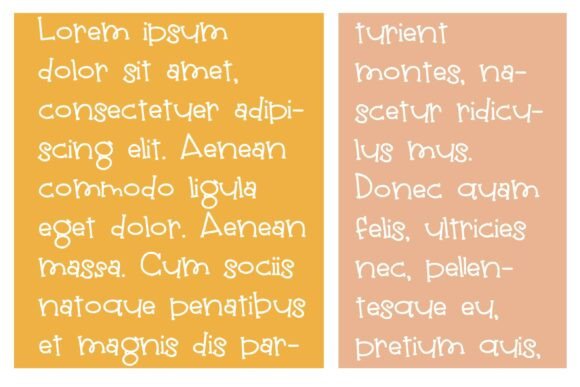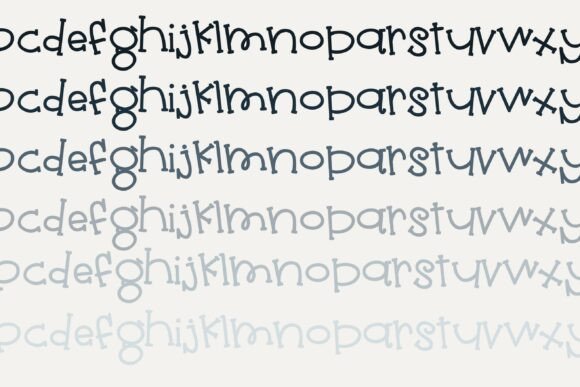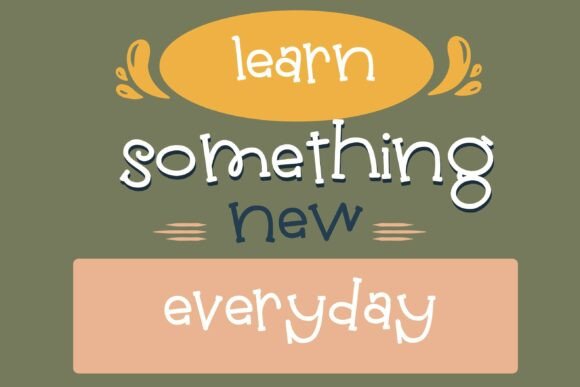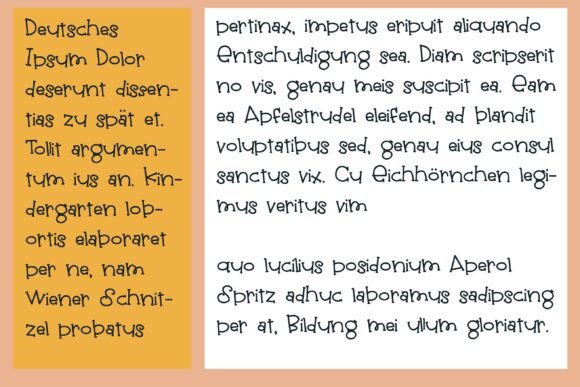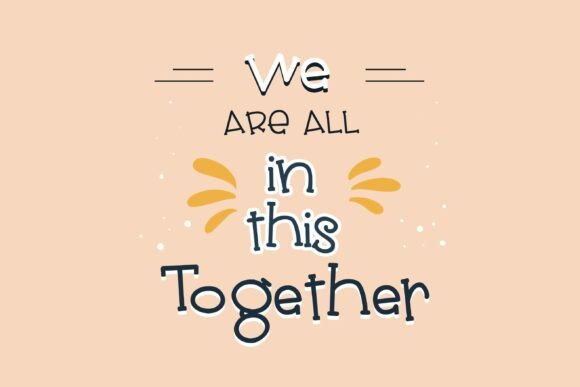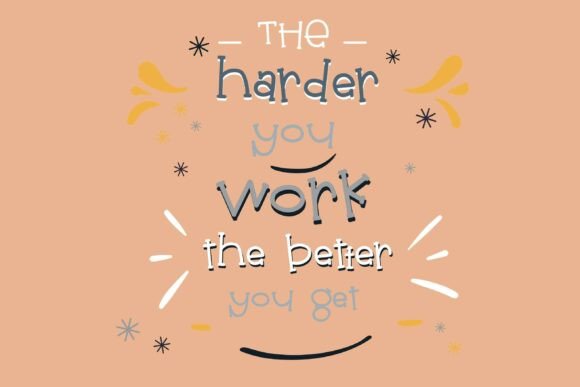
Introducing Exasperate Font: A Whimsical Handwritten Delight
Are you tired of using the same old fonts in your designs? Look no further than Exasperate Font, a lively handwritten print font with a whimsical twist. This charming font is perfect for adding a touch of personality to your designs, and its animated, storybook feel is sure to delight audiences of all ages.
The Characteristics of Exasperate Font
Exasperate Font boasts a unique combination of characteristics that set it apart from other fonts. Its charming irregularity and bouncy serifs give it a playful, energetic feel that’s perfect for kids’ designs, printables, and cheerful quotes. The font’s handwritten style is reminiscent of a storybook, evoking memories of childhood favorites like Dr. Seuss and Beatrix Potter.
Perfect for Kids’ Designs and More
Exasperate Font is a versatile font that’s perfect for a wide range of design projects. Its playful, whimsical style makes it an ideal choice for kids’ designs, such as:
- Kids’ party invitations and decorations
- Children’s book titles and illustrations
- Kids’ educational materials and worksheets
- Playful printables, such as coloring pages and activity sheets
But Exasperate Font isn’t just limited to kids’ designs. Its cheerful, upbeat style also makes it perfect for:
- Cheerful quotes and social media graphics
- Invitations and announcements for special events
- Branding and packaging for kids’ products or services
- Any design project that needs a playful, whimsical touch
Why Choose Exasperate Font?
So why choose Exasperate Font for your next design project? Here are just a few reasons:
- Unique and eye-catching: Exasperate Font is a one-of-a-kind font that’s sure to grab attention and stand out from the crowd.
- Playful and whimsical: This font’s playful, storybook feel is perfect for adding a touch of personality to your designs.
- Versatile: Exasperate Font can be used for a wide range of design projects, from kids’ designs to cheerful quotes and more.
- Easy to read: Despite its playful style, Exasperate Font is easy to read and understand, making it perfect for designs that need to communicate a message.
Tips for Using Exasperate Font
Here are a few tips for getting the most out of Exasperate Font:
- Use it with a bold color scheme: Exasperate Font looks great with bright, bold colors that match its playful style.
- Experiment with different sizes: This font looks great in a variety of sizes, from large headings to smaller body text.
- Pair it with other fonts: Exasperate Font pairs well with other fonts, such as sans-serif fonts or script fonts.
- Have fun with it: Exasperate Font is a playful font that’s meant to be enjoyed. Don’t be afraid to get creative and have fun with it!
Exasperate Font is a unique and eye-catching font that’s perfect for designers and crafters looking to add a touch of personality to their designs. Its playful, whimsical style makes it ideal for kids’ designs, printables, and cheerful quotes, and its versatility means it can be used for a wide range of design projects. So why not give Exasperate Font a try and see how it can bring a touch of magic to your designs?